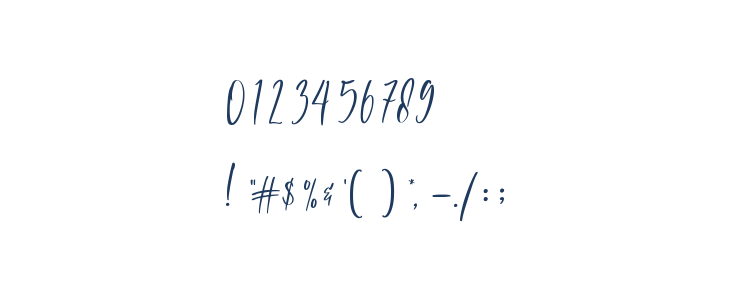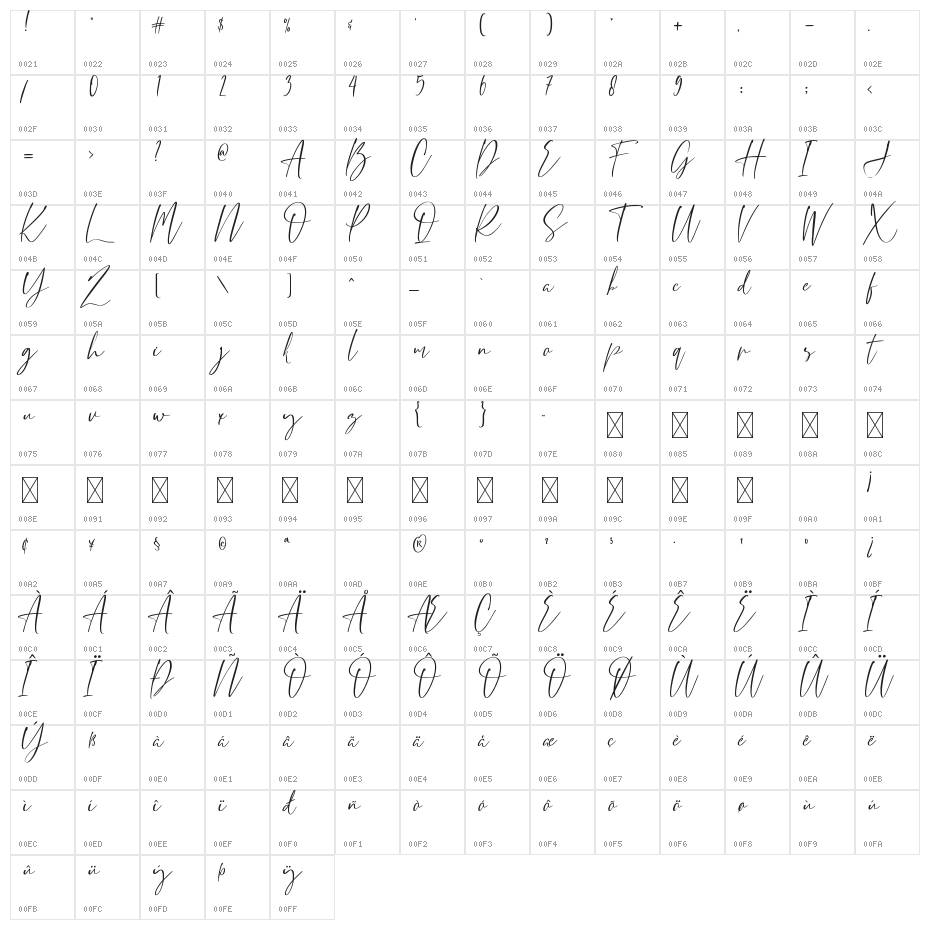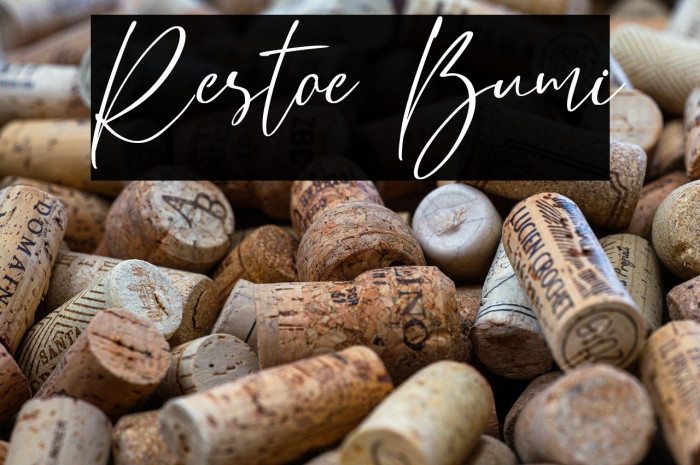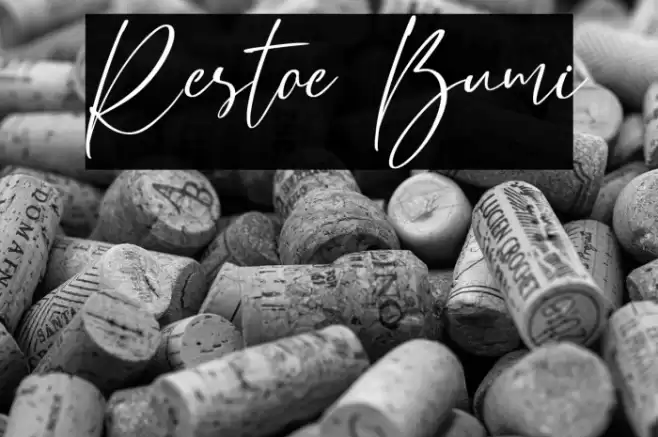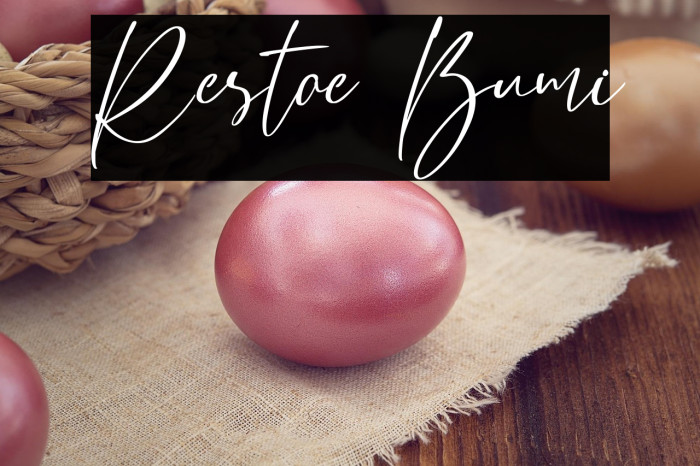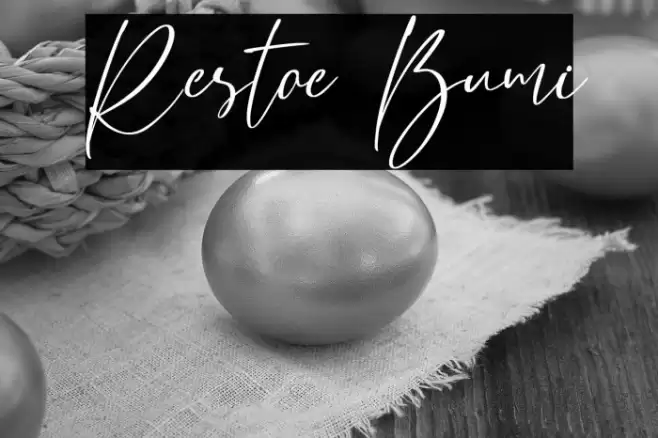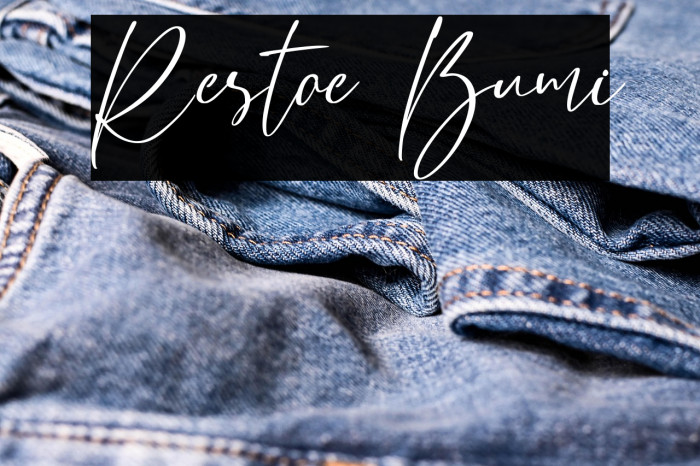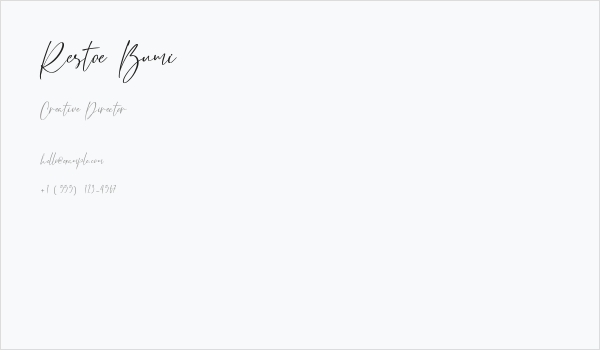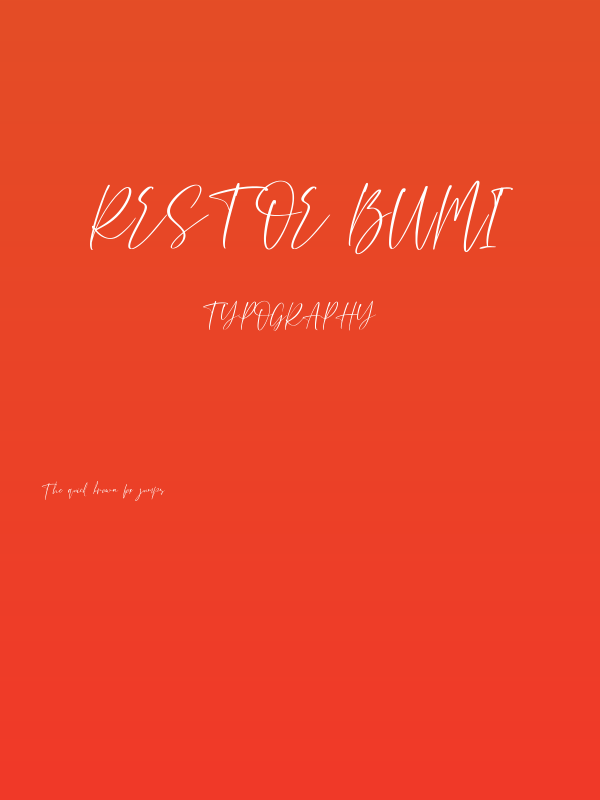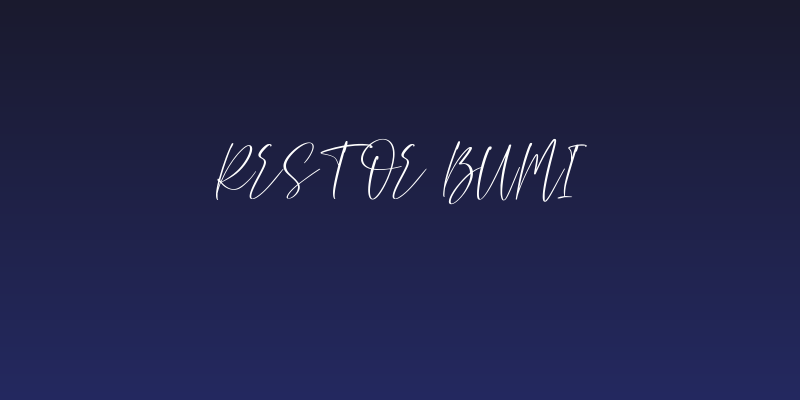
Restoe Bumi Font
Restoe Bumi Description
This font exudes a modern, handwritten style with a touch of elegance and fluidity. The letters are crafted with a natural flow, resembling a personal script that is both stylish and approachable. The uppercase characters are tall and slightly narrow, with a consistent slant that adds dynamism. Lowercase letters maintain a cohesive connection, enhancing the script-like appearance. The numerals are clear and legible, matching the overall aesthetic. Special characters are thoughtfully designed, maintaining the font's cohesive look. This font is perfect for projects that require a personal touch, such as invitations, branding, and social media graphics.
Use CaseLogos, Headlines, Invitations
Proposed ProjectsIdeal for wedding invitations, personal branding, social media posts, and greeting cards.